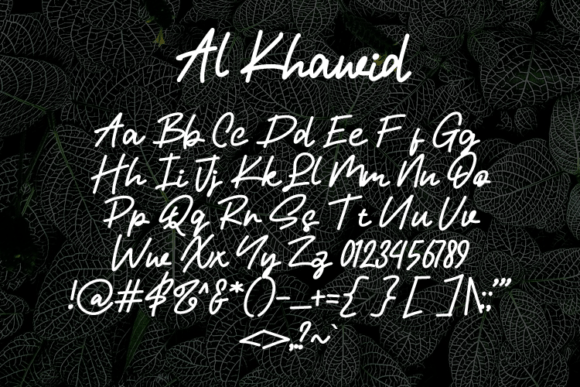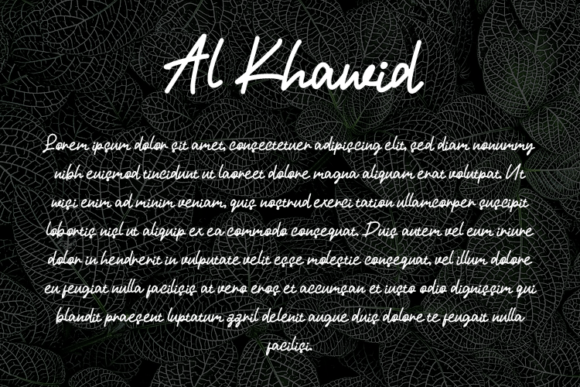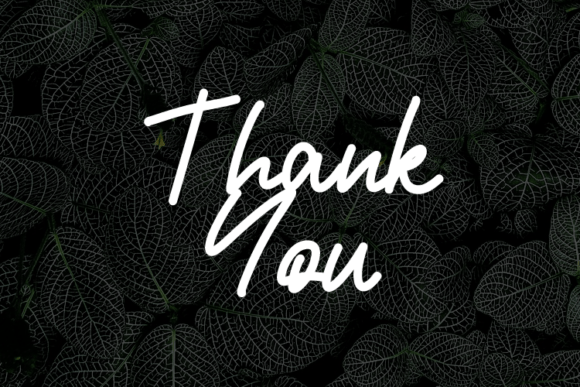
Introducing Al Khawid Font: Elevate Your Designs with Elegance and Versatility
In the realm of typography, the right font can make all the difference in the success of a design project. Whether you’re crafting a logo, creating a brand identity, or simply enhancing the readability of a document, the choice of typeface is crucial. This is where Al Khawid Font comes into play, offering a modern and elegant solution designed to meet the needs of designers and crafters alike. In this article, we’ll delve into the features, benefits, and applications of Al Khawid Font, exploring how it can elevate your designs and streamline your workflow.
What is Al Khawid Font?
Al Khawid is a contemporary typeface that has been meticulously crafted to provide excellent readability across a wide range of media. Its design focuses on flexibility, making it suitable for various applications, from digital screens to print materials. The font is available in the .otf (OpenType Font) file format, which ensures superior cross-platform compatibility. This means that Al Khawid can be seamlessly integrated into all major design software and office applications, including Adobe Creative Suite, Microsoft Office, and other design software.
Key Features of Al Khawid Font
- Modern and Elegant Design: Al Khawid boasts a sleek and sophisticated aesthetic that can add a touch of elegance to any design project.
- Excellent Readability: The font’s clear and well-defined characters ensure that text remains legible, even at small sizes, making it ideal for body text and captions.
- Flexibility: Whether you’re working on a digital project or a print publication, Al Khawid’s versatile design adapts effortlessly to different mediums.
Applications of Al Khawid Font
The versatility of Al Khawid Font makes it an excellent choice for a wide array of design projects. Here are some of the key areas where Al Khawid can make a significant impact:
- Branding and Logo Design: The modern and elegant design of Al Khawid makes it perfect for creating logos and brand identities that require a sophisticated look.
- Digital Media: For websites, blogs, and social media content, Al Khawid’s readability and aesthetic appeal ensure that your message is conveyed effectively.
- Print Materials: From brochures and flyers to books and magazines, Al Khawid’s flexibility and print-friendly design make it an excellent choice for all types of print publications.
- Advertising and Marketing: The font’s professional and clean appearance makes it suitable for use in advertisements, marketing materials, and promotional content.
Benefits of Using Al Khawid Font
Choosing Al Khawid Font for your projects comes with several advantages:
- Consistency: Al Khawid helps maintain typographic consistency across different platforms and media, enhancing your brand’s professional image.
Al Khawid Font stands out as a versatile and elegant typeface, designed to meet the diverse needs of designers and crafters. Its modern aesthetic, combined with excellent readability and broad compatibility, makes it an invaluable asset for any design project. Whether you’re creating digital content, print materials, or branding elements, Al Khawid offers the flexibility and professional look required to elevate your designs. By incorporating Al Khawid into your typography arsenal, you can enhance your workflow, ensure consistency across platforms, and produce visually compelling content that captivates your audience.